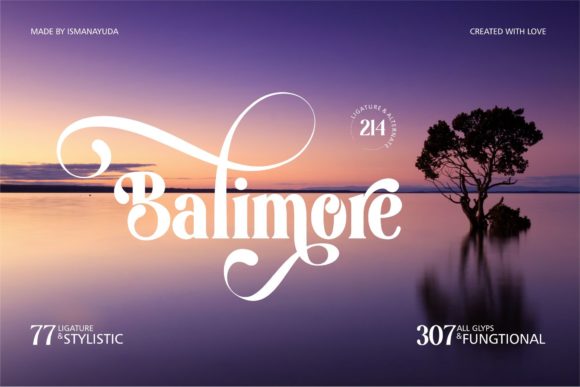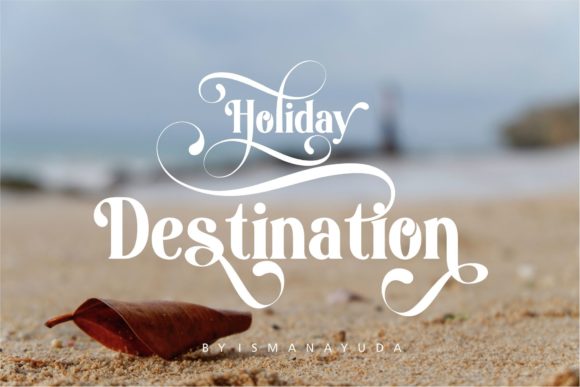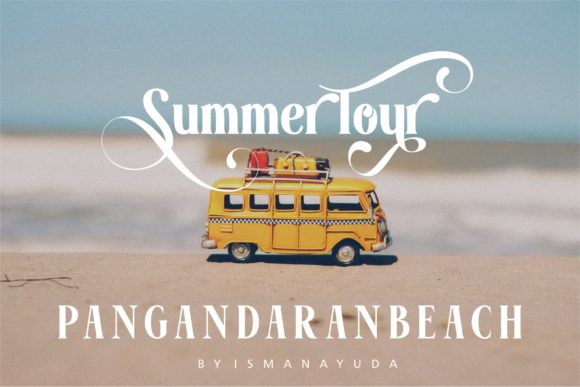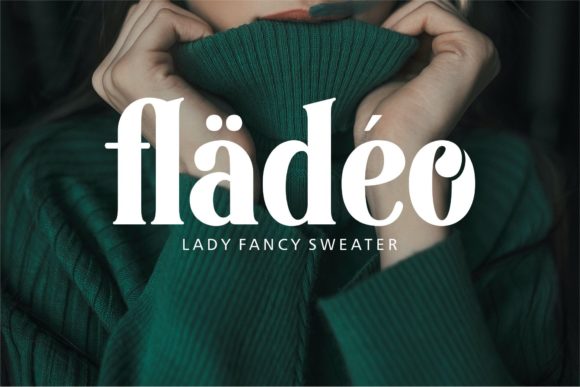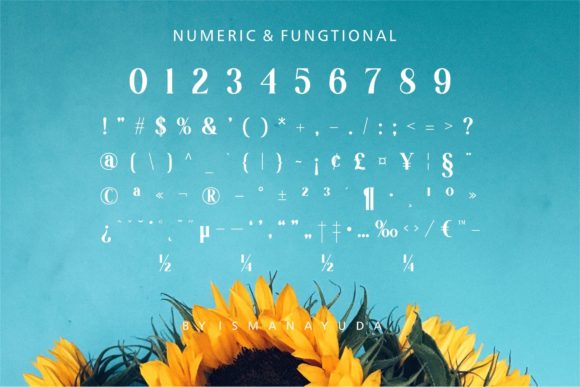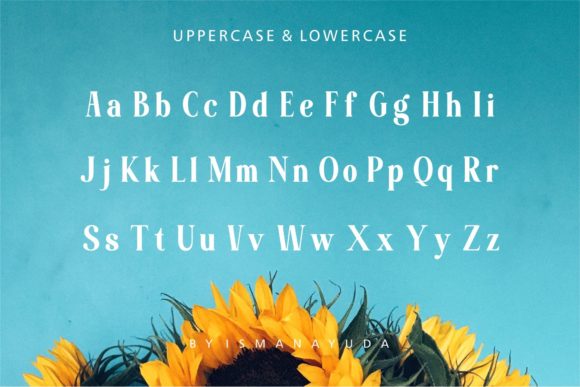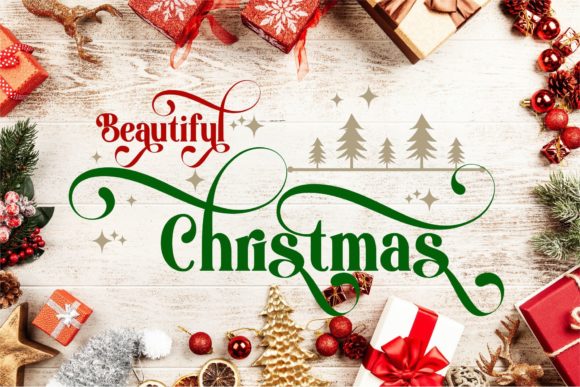
Introducing Balimore Font: Elevate Your Designs with Elegance and Sophistication
Are you a designer or crafter looking for a font that exudes elegance, beauty, and smoothness? Look no further than Balimore Font. This stunning serif font is perfect for a wide range of design projects, from invitation cards and decorations to clothing products, greeting cards, and more. In this article, we’ll dive into the world of Balimore Font and explore its features, benefits, and uses.
What is Balimore Font?
Balimore Font is a serif font that boasts an elegant, beautiful, and smooth design. Its classic and sophisticated look makes it an excellent choice for designers and crafters who want to add a touch of luxury to their projects. Whether you’re working on a summer design, Christmas card, winter project, or holiday poster, Balimore Font is a great option to consider.
Key Features of Balimore Font
- Elegant and Sophisticated Design: Balimore Font features a classic serif design that exudes elegance and sophistication.
- Smooth and Refined: The font’s smooth and refined lines make it perfect for designs that require a high level of detail and precision.
- Versatile: Balimore Font is suitable for a wide range of design projects, from invitation cards and decorations to clothing products and greeting cards.
- Seasonal and Holiday-themed Designs: This font is an excellent choice for summer designs, Christmas cards, winter projects, and holiday posters.
Benefits of Using Balimore Font
So, why choose Balimore Font for your design projects? Here are just a few benefits of using this stunning serif font:
- Adds Elegance and Sophistication: Balimore Font can instantly elevate your designs and add a touch of luxury and sophistication.
- Enhances Readability: The font’s smooth and refined lines make it easy to read, even at small sizes.
- Increases Versatility: With Balimore Font, you can create a wide range of design projects, from formal invitations to casual greeting cards.
- Perfect for Seasonal and Holiday-themed Designs: This font is specifically designed to help you create stunning seasonal and holiday-themed designs that will capture the spirit of the season.
Design Ideas Using Balimore Font
Now that we’ve explored the features and benefits of Balimore Font, let’s take a look at some design ideas to get you started:
- Invitation Cards: Use Balimore Font to create elegant and sophisticated invitation cards for weddings, parties, and other special events.
- Decorations: Add a touch of luxury to your decorations with Balimore Font, perfect for creating stunning wall art, garlands, and other decorative items.
- Clothing Products: Use Balimore Font to create stylish and eye-catching clothing products, such as t-shirts, hoodies, and tote bags.
- Greeting Cards: Create beautiful and heartfelt greeting cards for special occasions, such as birthdays, holidays, and anniversaries.
- Summer Designs: Use Balimore Font to create stunning summer designs, such as beach posters, summer camp invitations, and outdoor event flyers.
- Christmas Cards and Winter Projects: This font is perfect for creating beautiful Christmas cards, winter wonderland scenes, and holiday posters.
In conclusion, Balimore Font is an elegant, beautiful, and smooth serif font that’s perfect for designers and crafters looking to add a touch of luxury to their projects. With its versatile design and wide range of uses, this font is an excellent choice for invitation cards, decorations, clothing products, greeting cards, and more. Whether you’re working on a summer design, Christmas card, winter project, or holiday poster, Balimore Font is sure to elevate your designs and help you create stunning visual content.